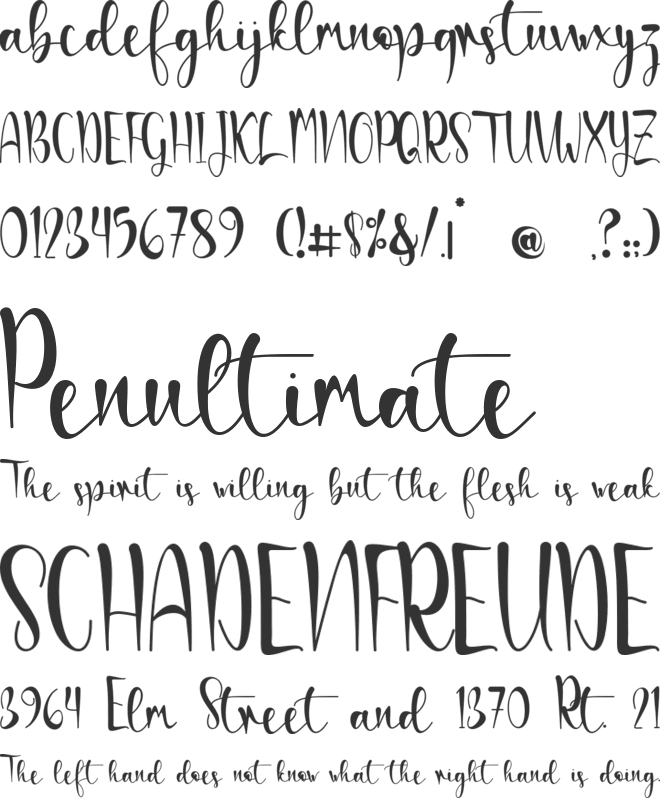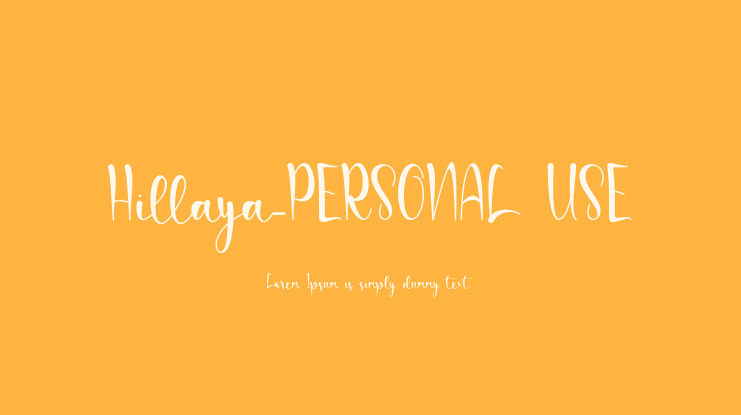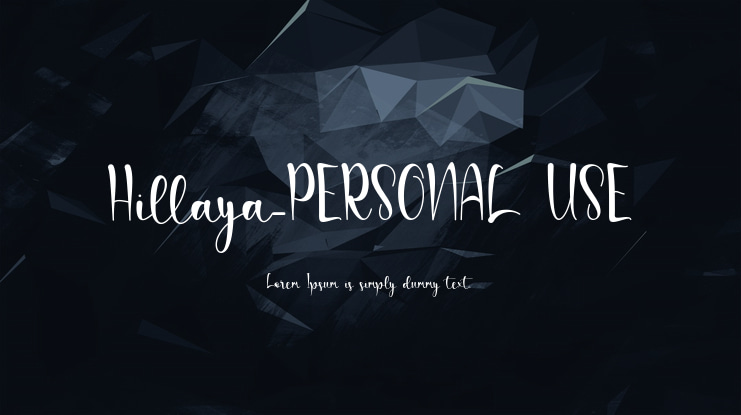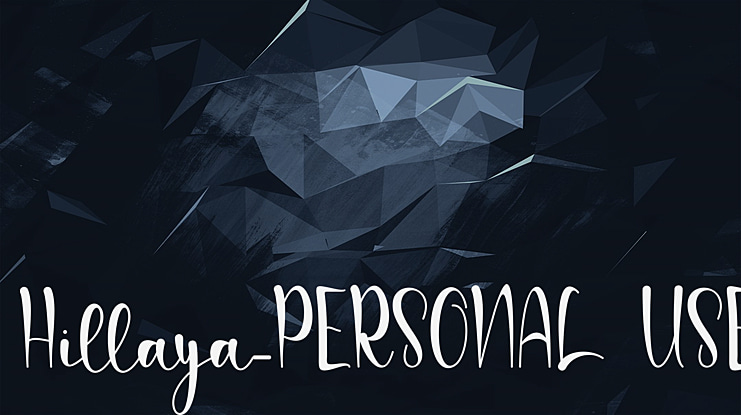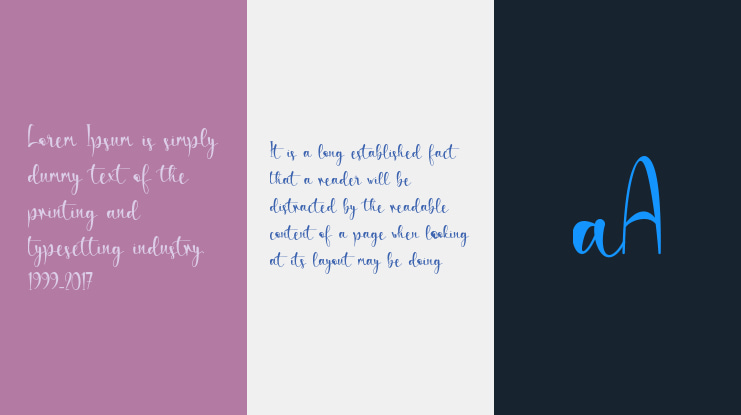
Hillaya-PERSONAL USE Font
Hillaya is a very casual modern handwritten font.
very elegant writing and looks very beautiful, suitable for wedding invitations, greeting cards, logo designs, t-shirt designs, etc.